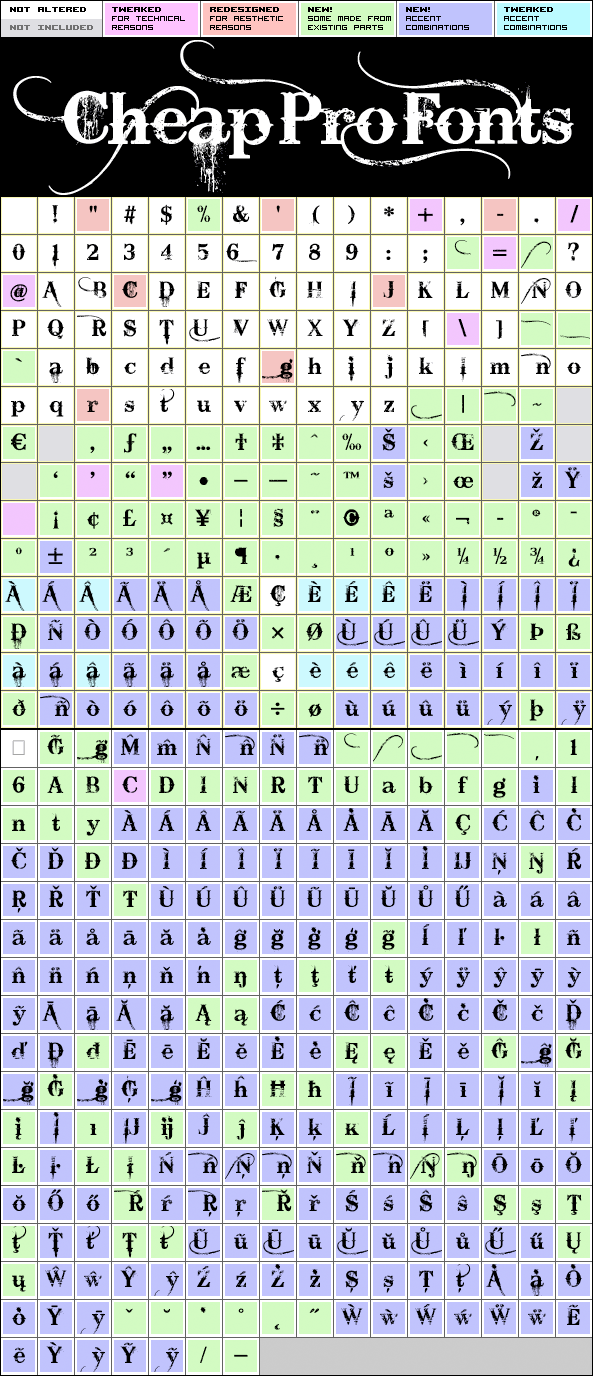
A very popular grungy font, now made even more useful! :) With this Pro version you have the possibility to tone it down a bit - I have made alternate letters without swashes (use the OpenType "Swash" feature to remove them) and without so much bleed (use the OpenType "Stylistic Alternates"/"ss01" feature). And then you can turn it up again by adding 6 different swashes to any letter!: write "{" or "<" before a letter to add a swash to the left side, "^" will add one above - and/or write "}" or ">" after a letter to add a swash to the right side, "_" will add one below. Added fun and language support! :)
Bleeding Cowboys Pro is a professionally reworked font that contains an extended character set for setting text in 65 languages requiring more than the basic A-Z!